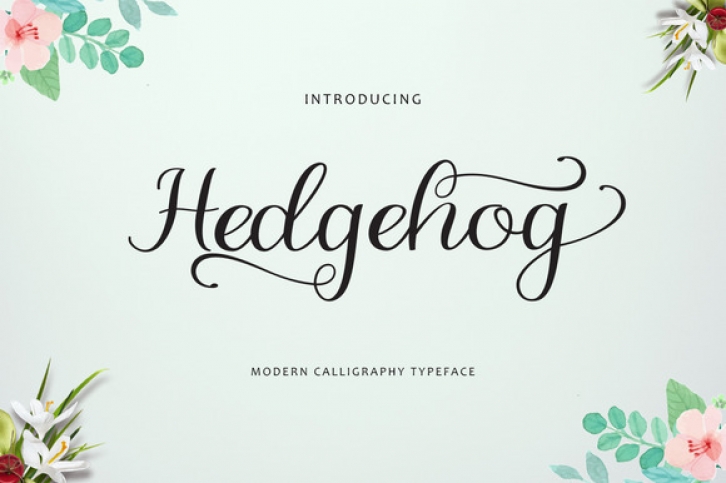
Hedgehog is a script font that has a characteristic feeling. It can be used for various purposes such as headings, logos, invitations, t-shirt designs, greeting cards, posters, labels, book covers, brochures and much more.